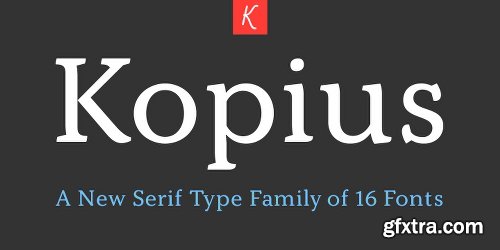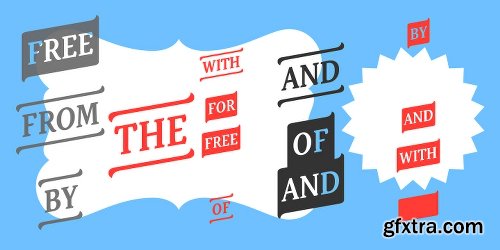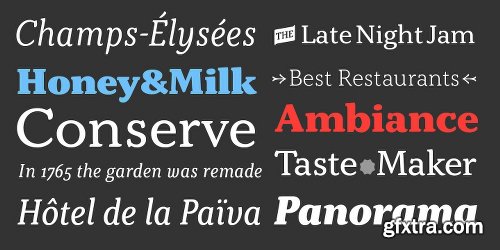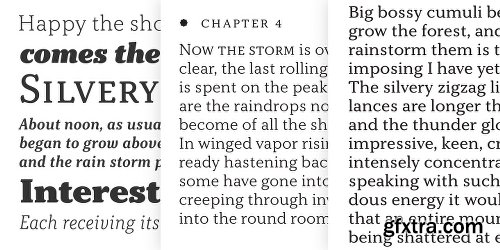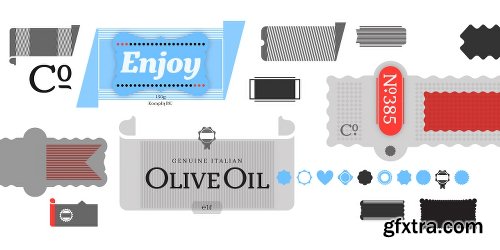
- The Kopius™ family is a contemporary serif type that features friendly characteristics with round, open counters conveying a relaxed ambiance. The robustness of the characters supports a wide variety of applications including editorial and display use.
- The uniquely defined novel glyph construction and serif shapes convey an allusion to a brush stroke that bestows a contemporary, texture-rich appearance entirely in tune with functionality. The top and bottom slightly curved stems imply flow and reading direction.
- Kopius is an exuberant family with a genuinely multifaceted repertoire. This upbeat type comes with a multitude of weights to satisfy any fanciful appetite for a colorful typographic palette. With packaging solutions in mind the family includes sets of expandable and combinable box heading material for a boundless range of adjusted composites.
- In addition, pertinent labels, weight-adjusted arrows, and word logos complete the Kopius family. OpenType provides advanced layout features including figure sets, small caps, fractions, and more.
- Herbert Thannhaeuser’s Liberta, an Antiqua type family designed for the East German type foundry VEB Typoart between the middle to end 1950s, has stirred the initial inspiring force for Kopius. Baskerville-like open and modern typeface proportions further characterize Kopius’ letter dimensions. With its affable yet serious demeanor, Kopius is confidently assuming numerous tasks